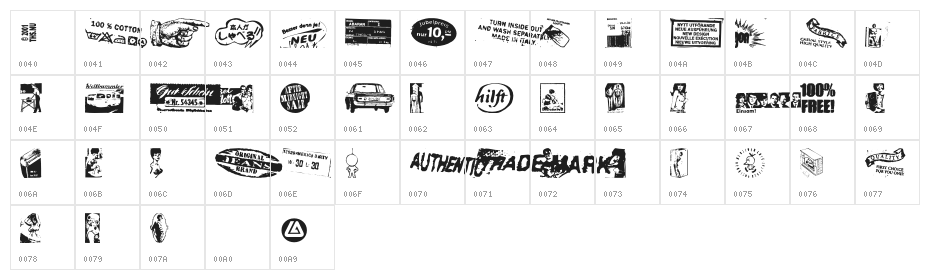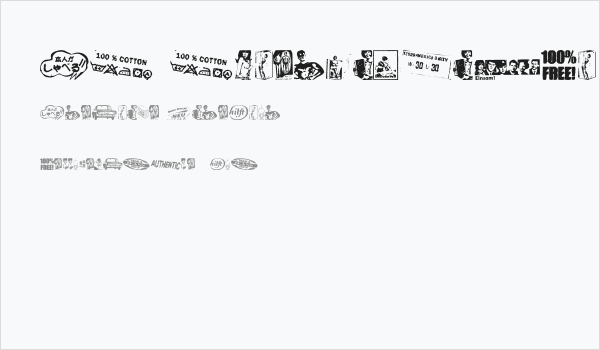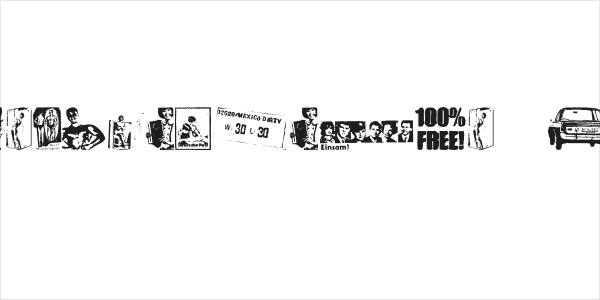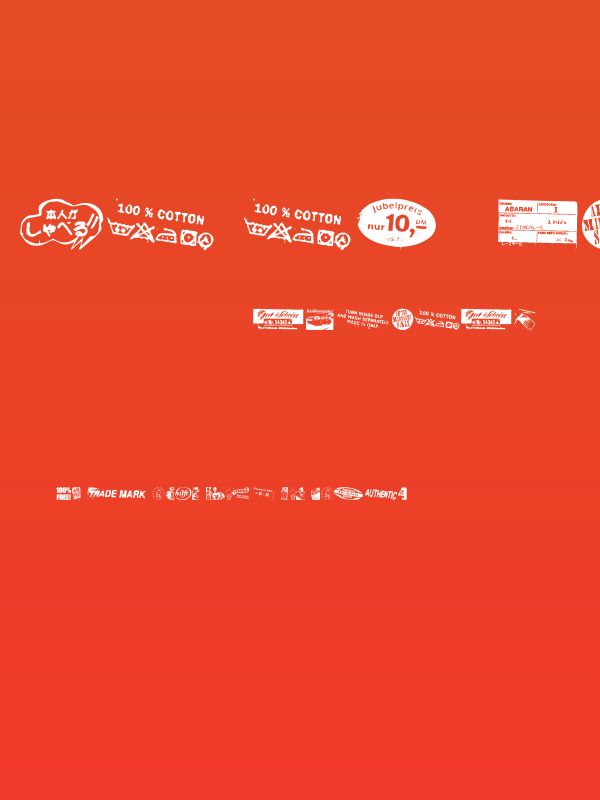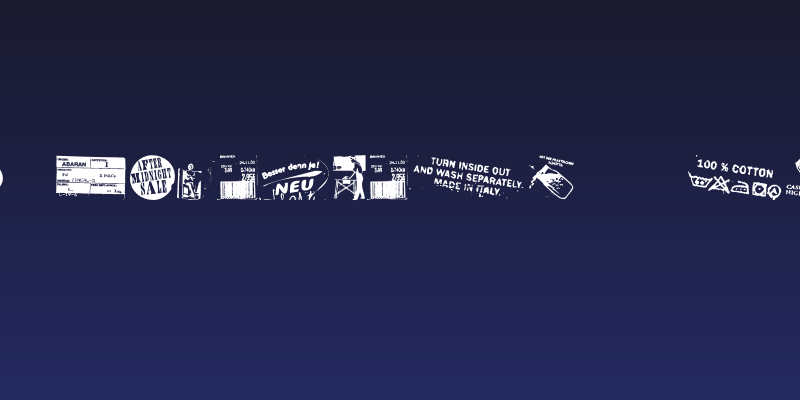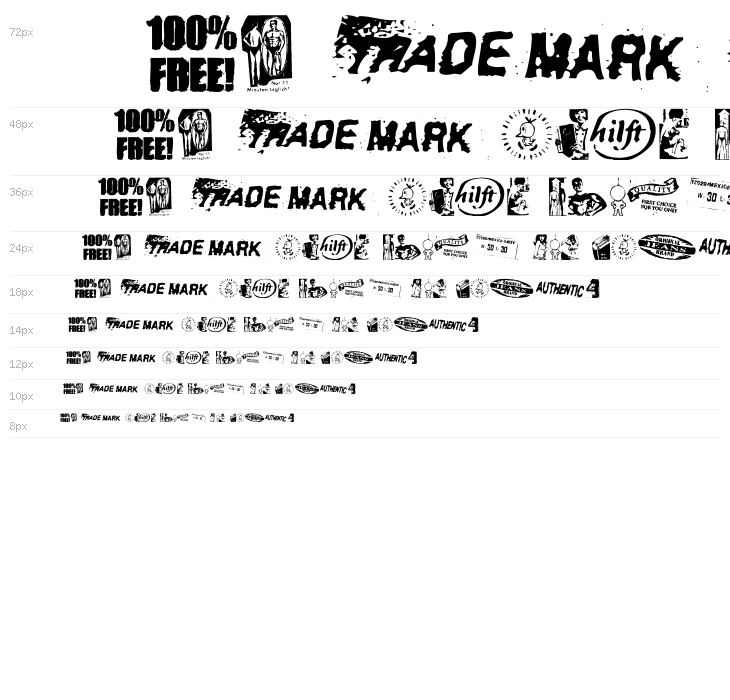
CA AfterMidnightSaleJunk Font
CA AfterMidnightSaleJunk Description
A decorative and eclectic font featuring a mix of vintage advertisements, illustrations, and text elements. The style is reminiscent of mid-20th-century commercial art.
| Overall Style | Vintage, Decorative |
| Use Case | Logos, Posters, Creative Branding |
| Proposed Projects | Retro-themed designs, posters, and creative branding. |